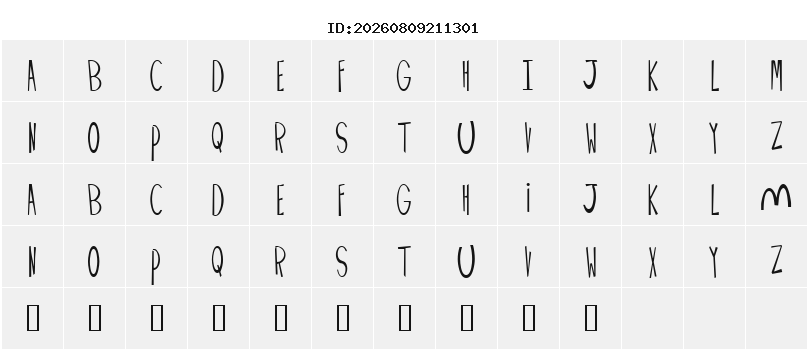
Palimpus Preview
• Font Name: Palimpus
About Palimpus.ttf
Palimpus.ttf is a modern, elegant sans-serif font designed for ultimate readability and visual harmony. Perfect for branding, headlines, web design, and print materials.